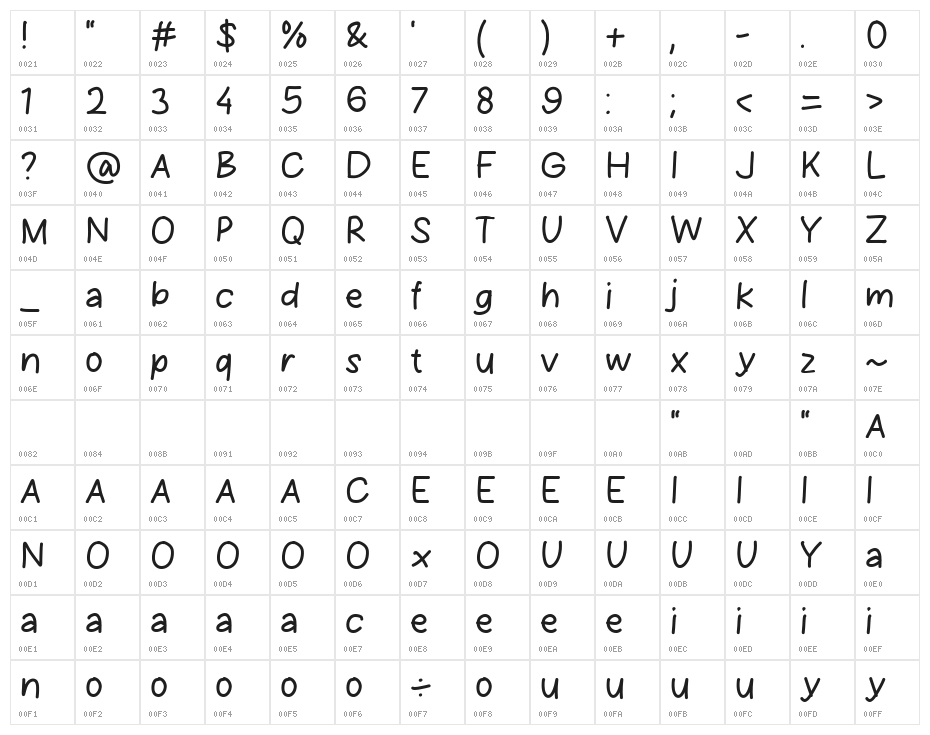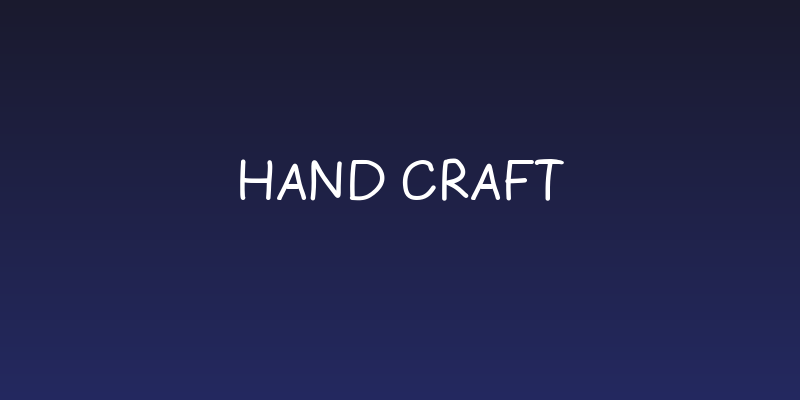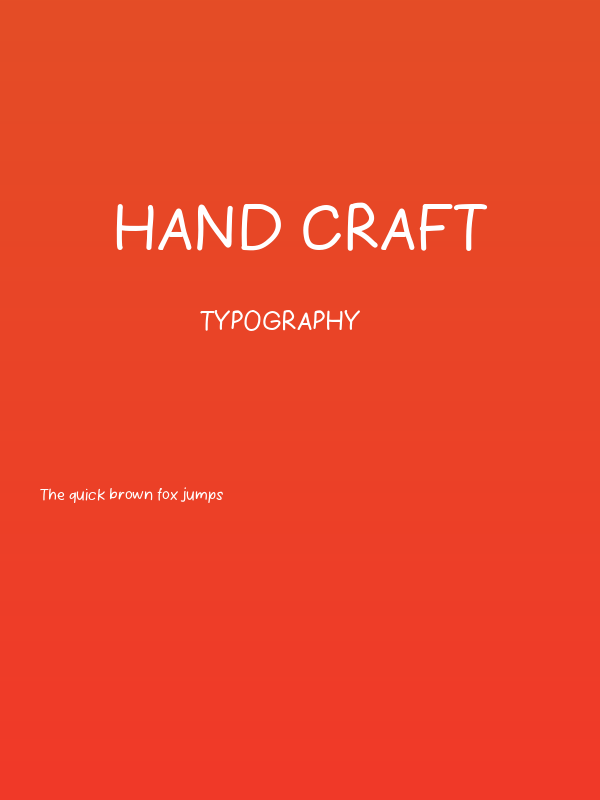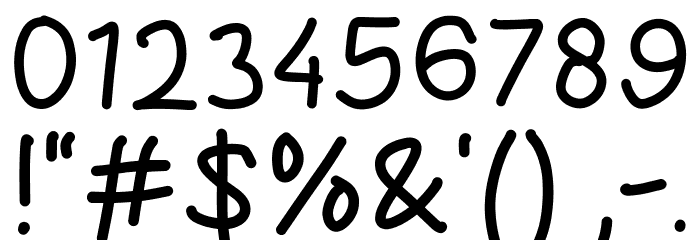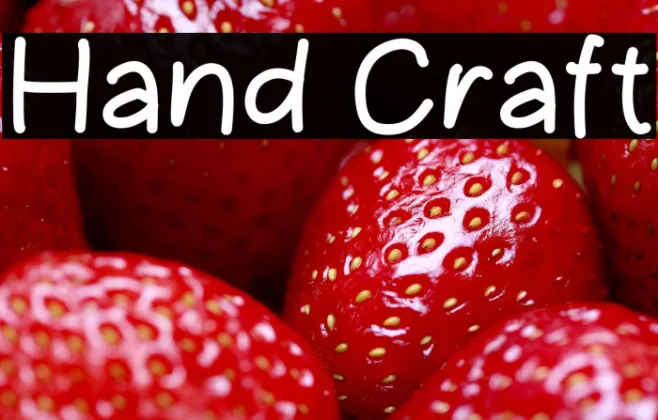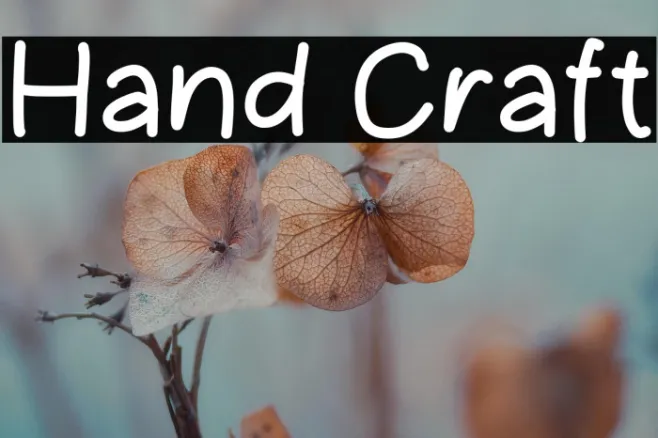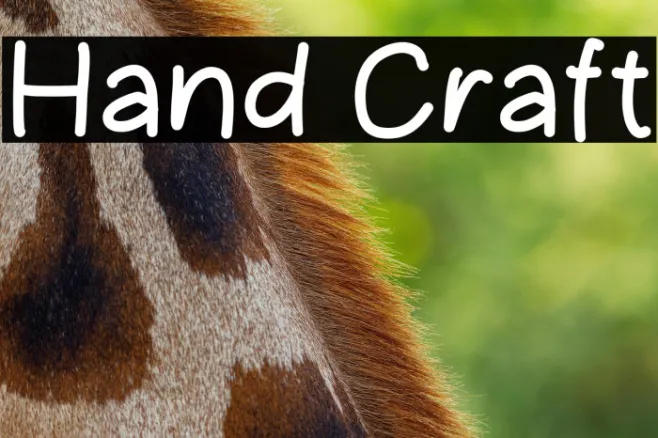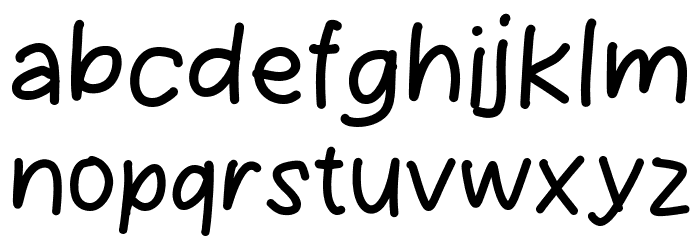
Hand Craft Font
Hand Craft Description
This font exudes a playful and informal vibe, characterized by its handwritten style that mimics natural penmanship. The letters are slightly irregular, adding to the charm and authenticity of the design. The strokes are consistent in thickness, providing a uniform appearance across all characters. The font includes a full set of uppercase and lowercase letters, numerals, and a variety of special characters, making it versatile for different uses. Its casual and friendly look makes it ideal for projects that require a personal touch.
| Use Case | Logos, Invitations, Informal Texts |
| Proposed Projects | Ideal for greeting cards, personal notes, children's books, and informal branding. |